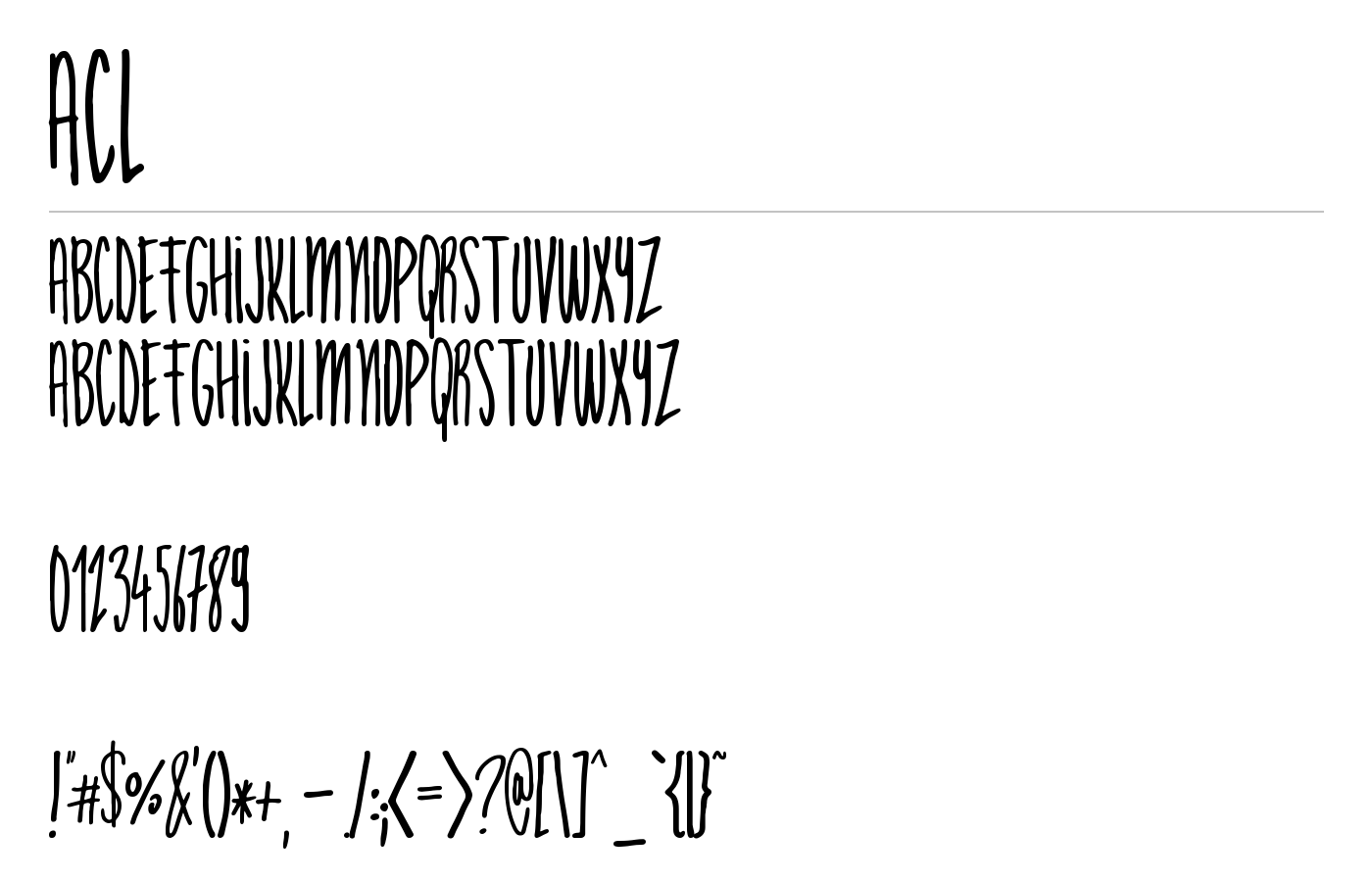
Acl Font is a tall, narrow sans serif typeface with a playful, hand-drawn feel. Its consistent thin strokes and elongated letterforms make it suitable for creative and informal designs, lending a quirky and approachable personality to headlines, posters, and branding projects that want a unique touch.
Acl Font
About Acl Font